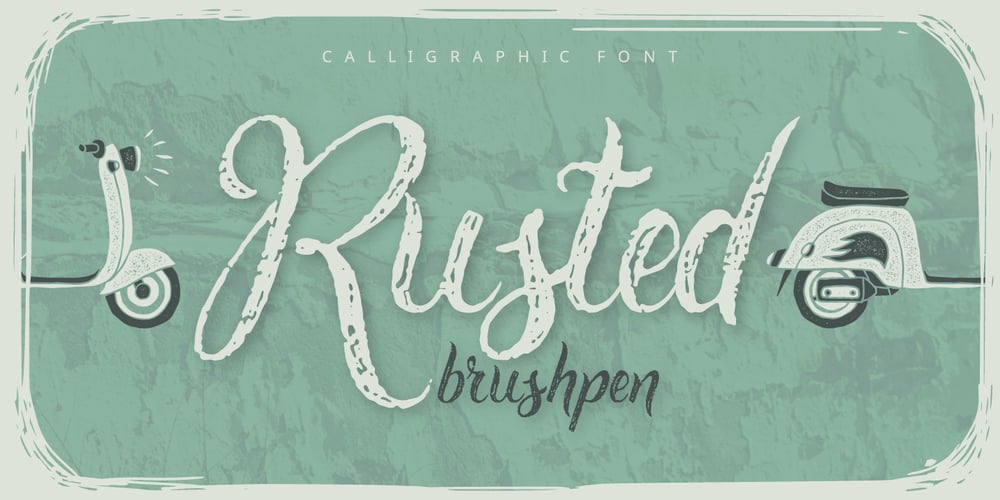
Rusted Brushpen Font Family was designed by Gleb Guralnyk and published by Gleb Guralnyk. Rusted Brushpen contains 1 styles and family package options. Introducing handcrafted “Rusted brushpen” font. It’s a fancy brushpen script with rough grungy effect.